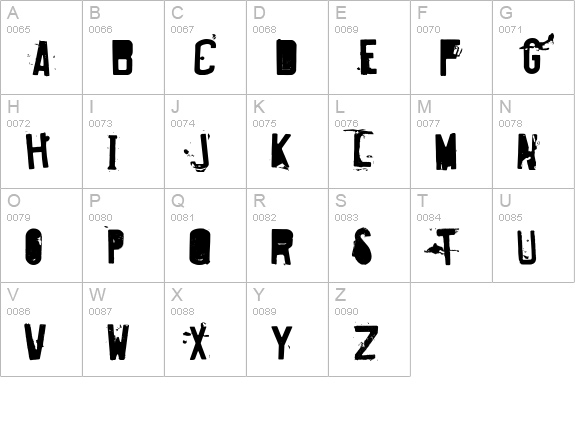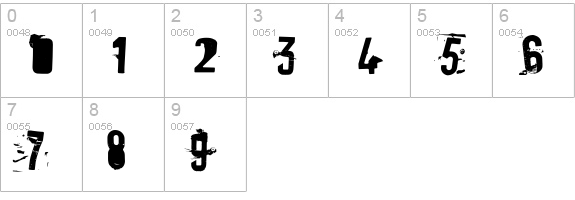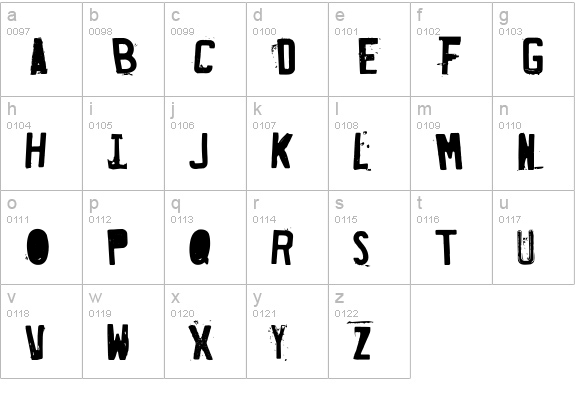
Fucked Plate Font Details
The Fucked Plate font is a unique and edgy typeface that exudes a raw and rebellious vibe. With its distorted and rugged letterforms, this font is perfect for adding a touch of grunge and urban flair to your designs. The irregular spacing and rough edges give the text a hand-crafted look that is sure to make a bold statement. What's even better is that the Fucked Plate font is available for free download at FontsMarket.com. Whether you're working on a poster, album cover, or branding project, this font will add a touch of attitude and personality to your designs. So go ahead and grab this font for free today and let your creativity run wild!